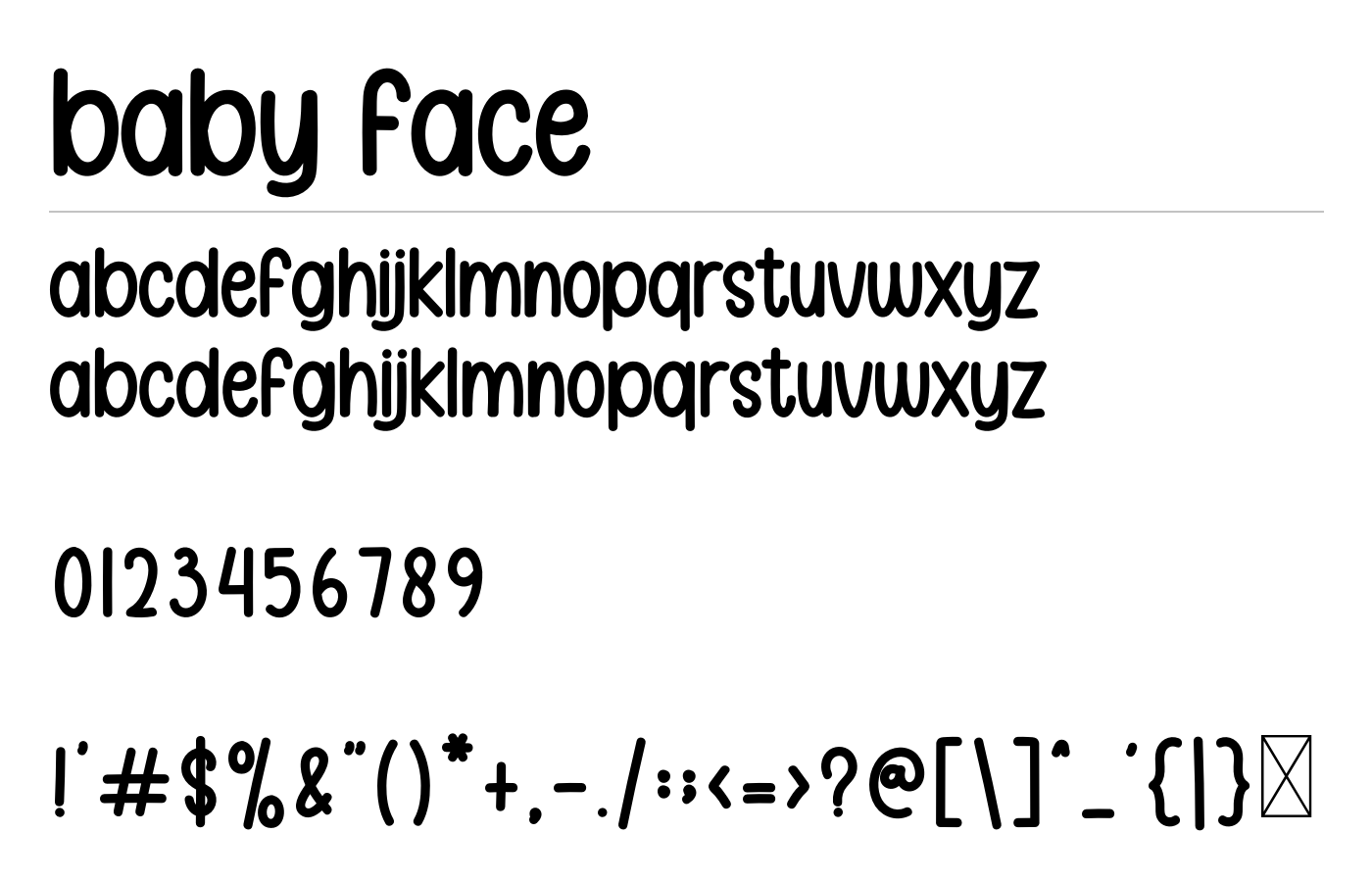
Baby Face is a playful, rounded sans serif font with a friendly and casual style. Its soft, slightly bubbly letterforms and moderate x-height make it approachable and easy to read, ideal for projects that want to convey warmth and charm. This font works well for children's books, informal branding, and lighthearted headlines due to its inviting, fun personality.
Baby Face Font
About Baby Face Font